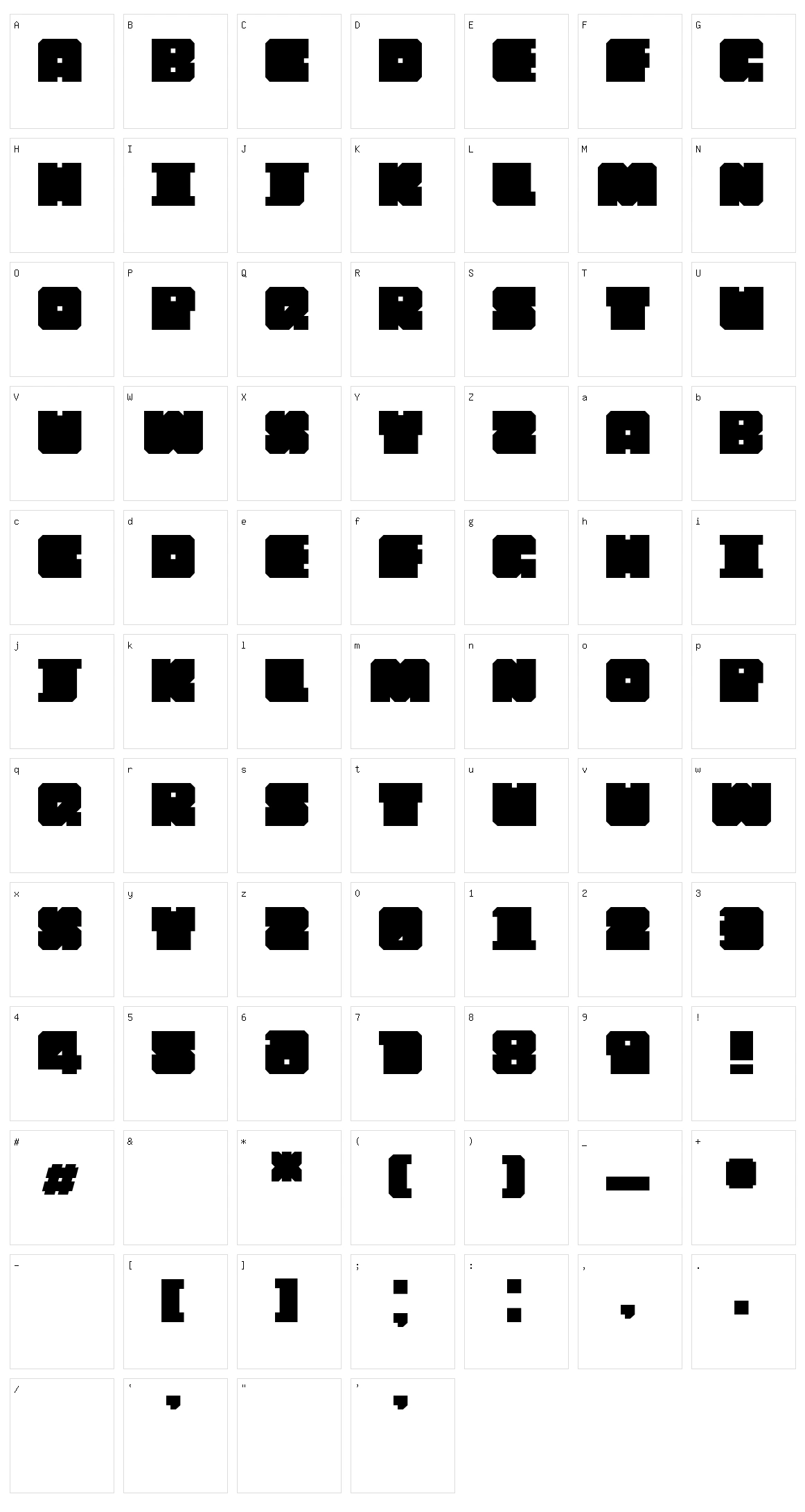
The free font Chipblocked is carefully designed by Marroon, showcasing a thoughtful balance of creativity and usability and falls under the Square font style. When you download the ZIP file, it contains only 6.02 KB of font files, making it lightweight and quick to download. Please review the license details below to understand permitted usage and distribution rights. If license information is not available, we recommend using this font for personal projects only or contacting the author directly for commercial usage permissions.